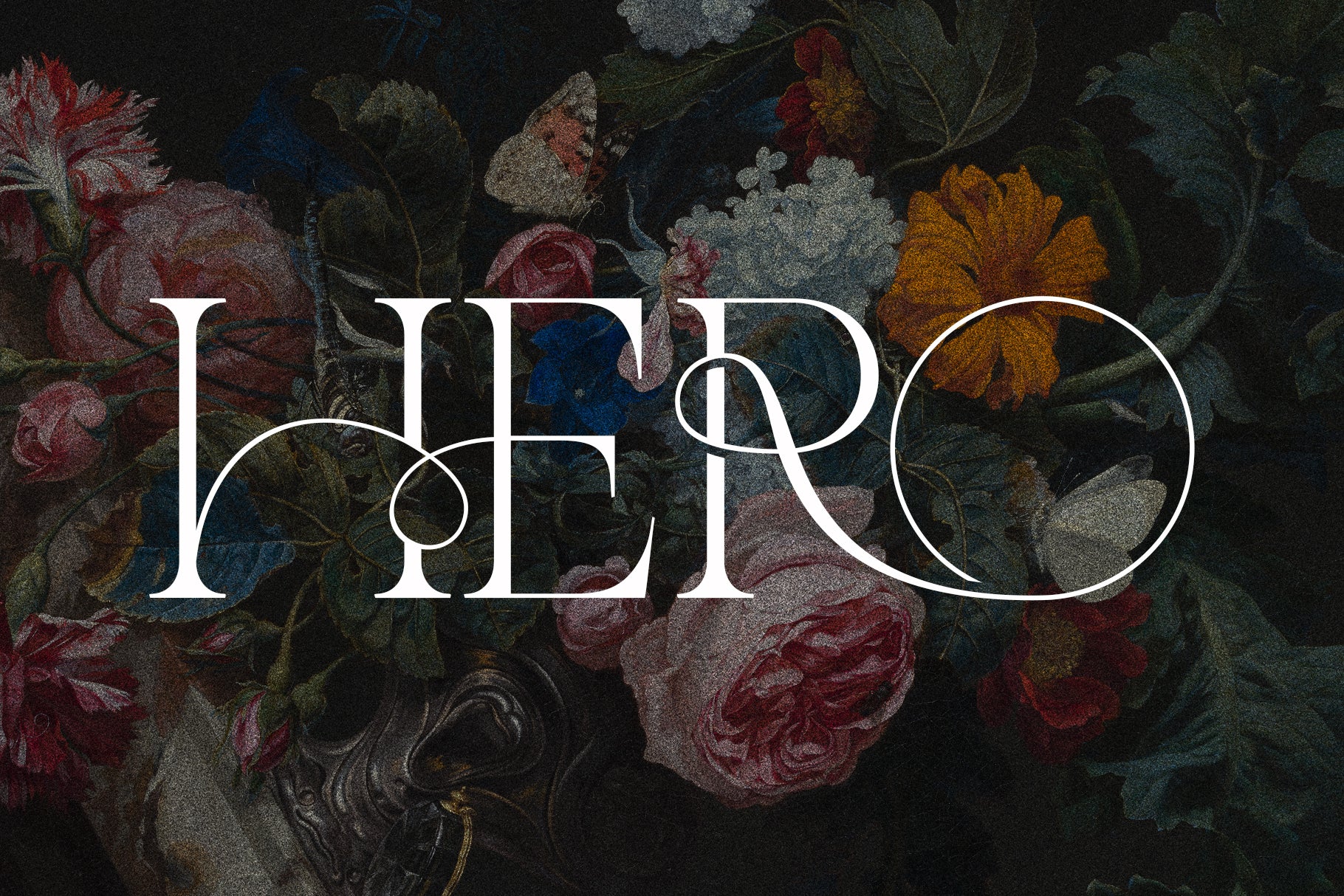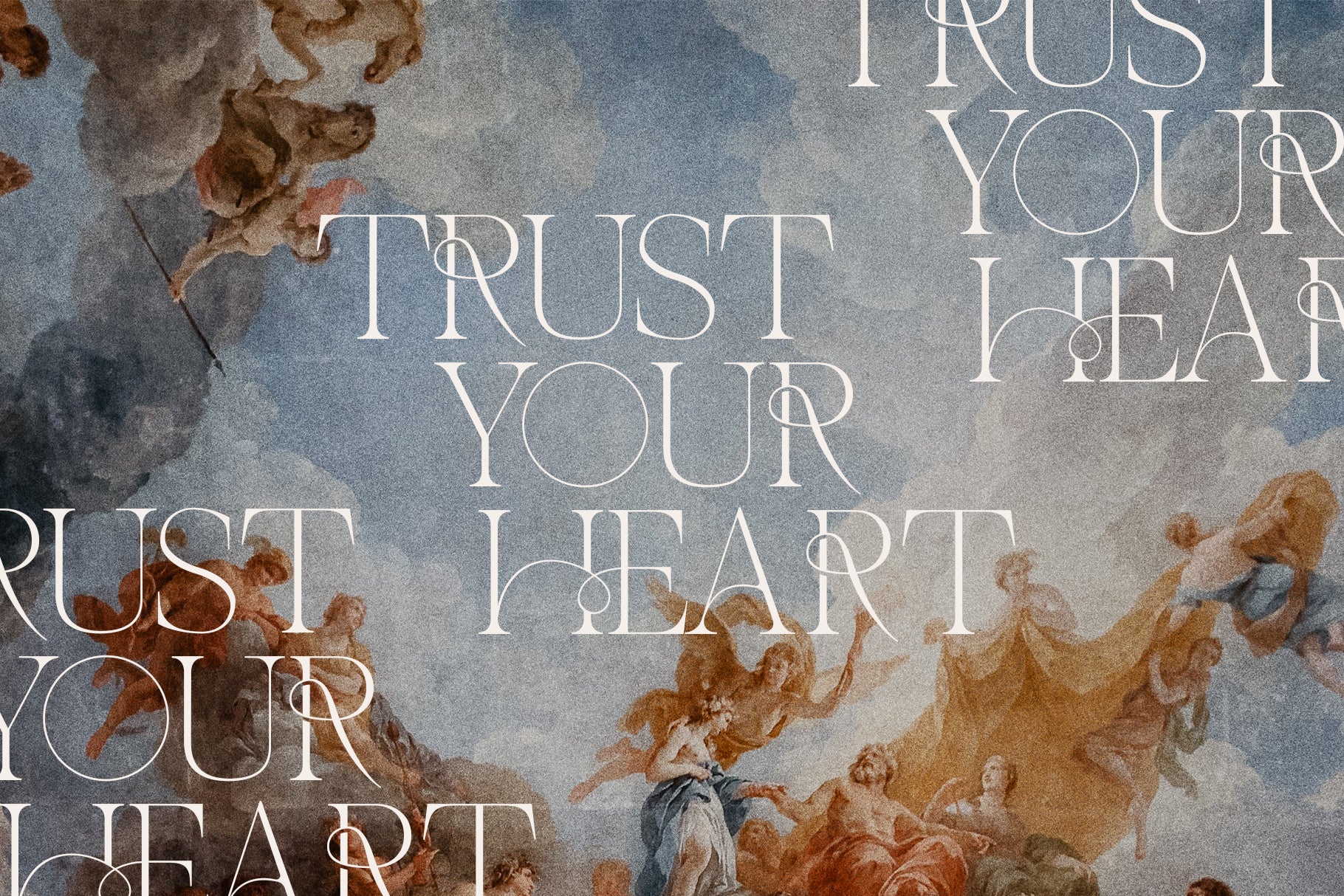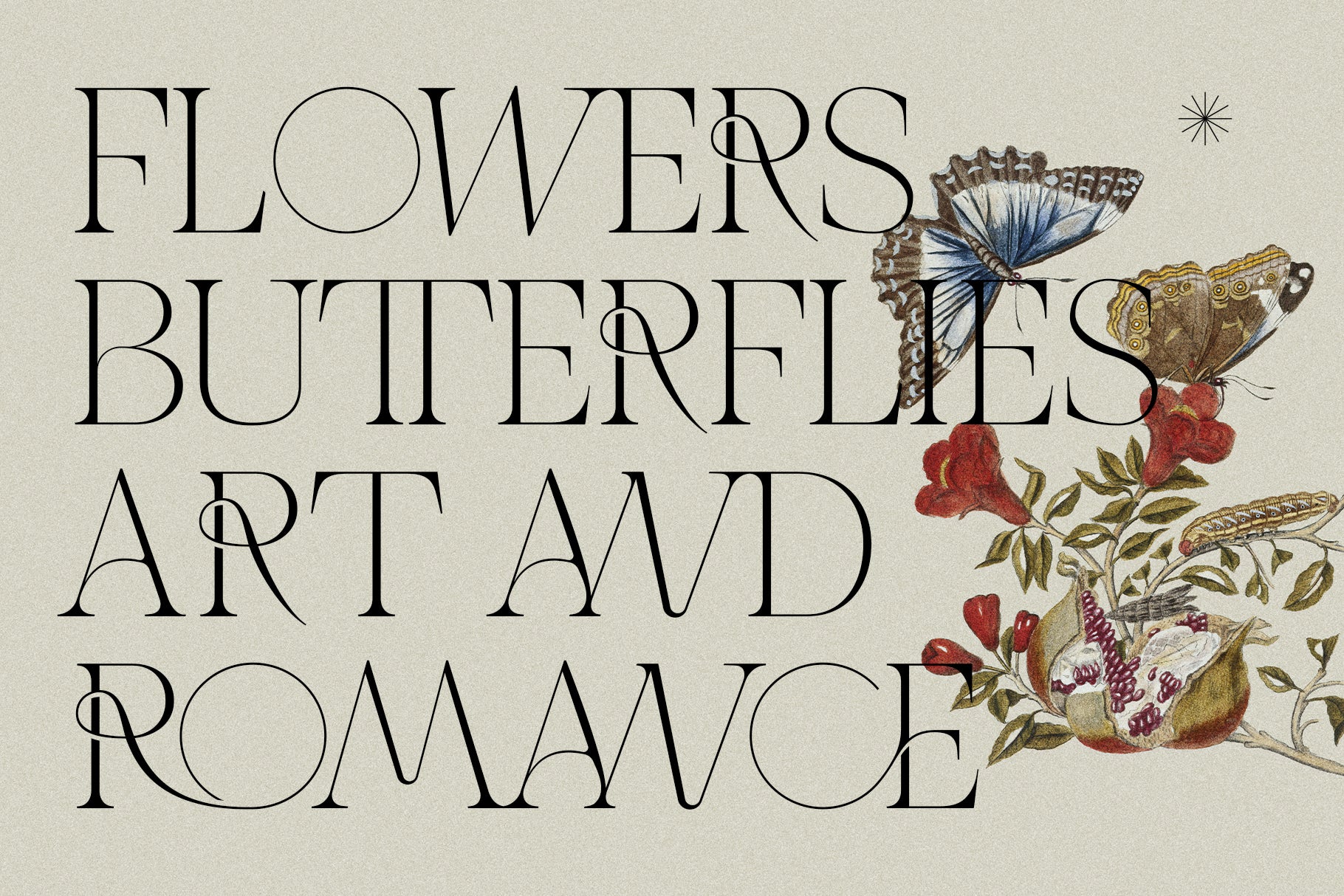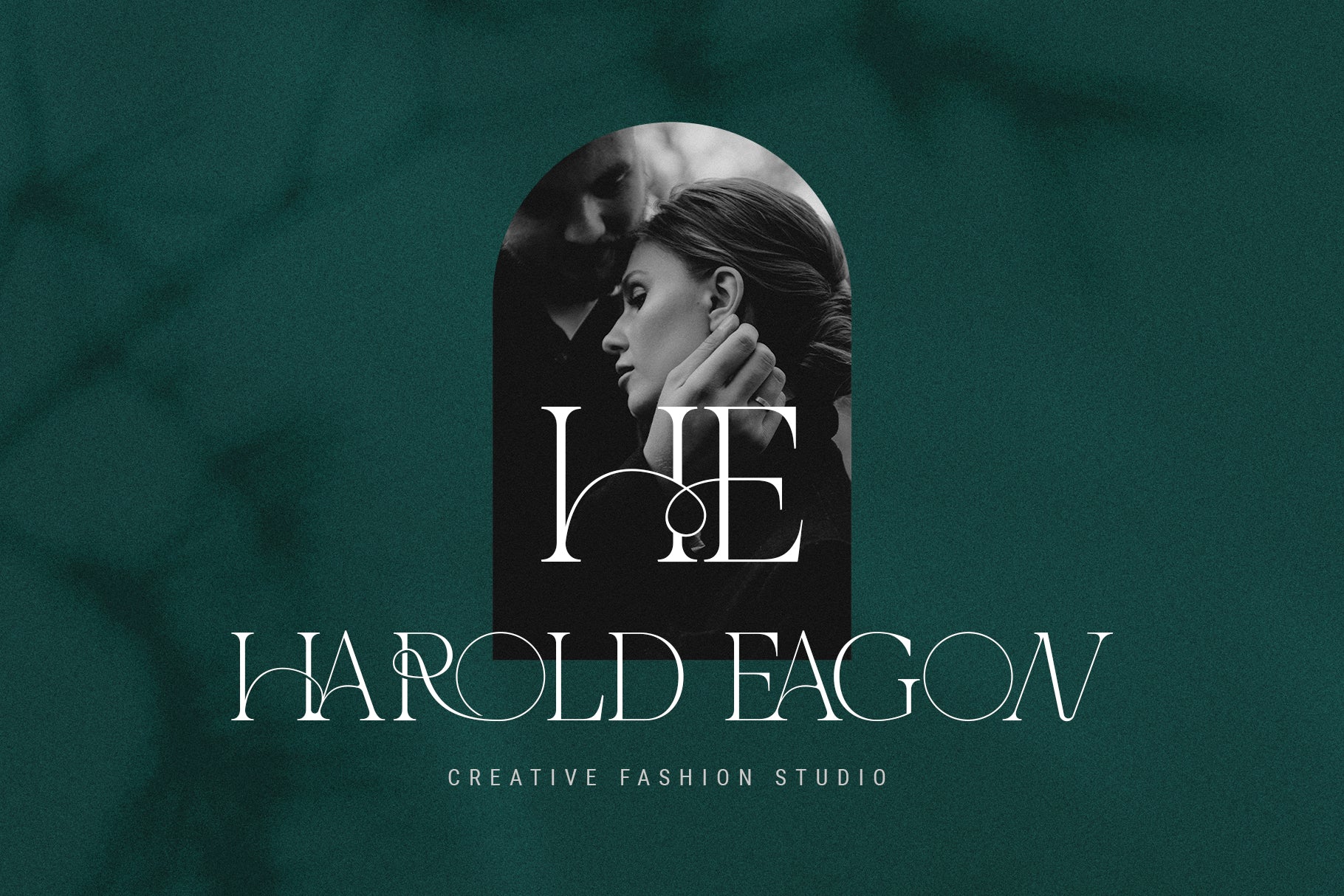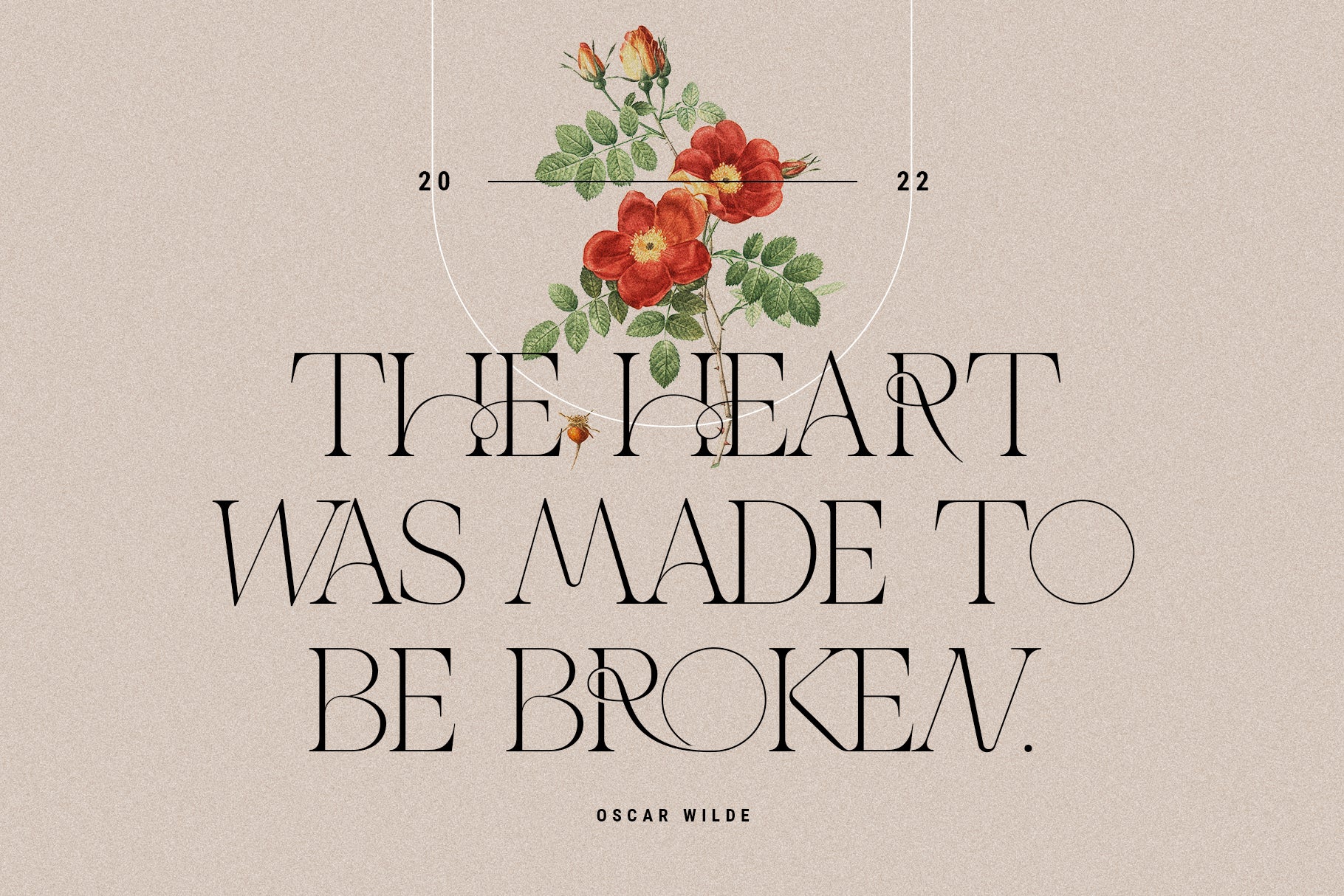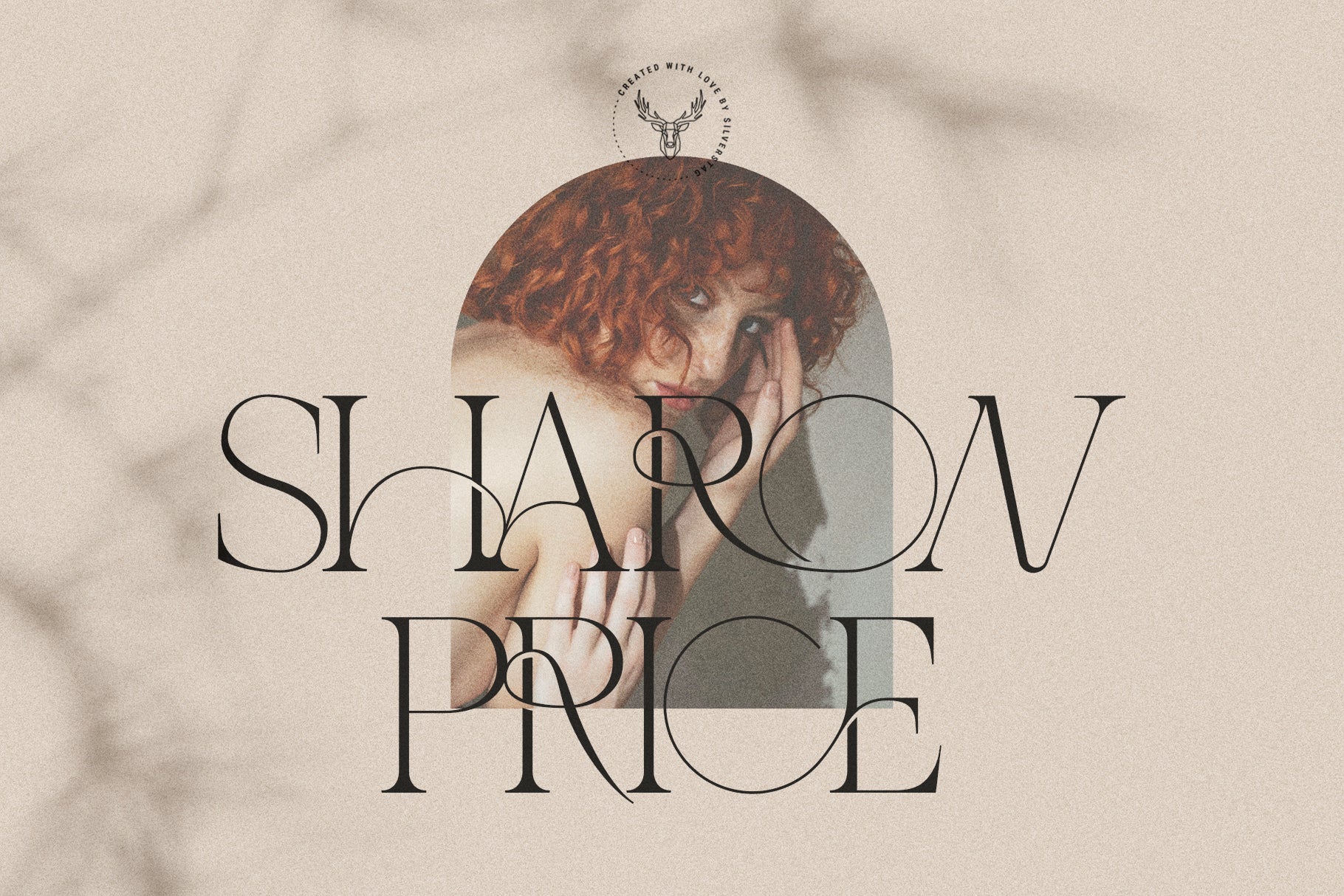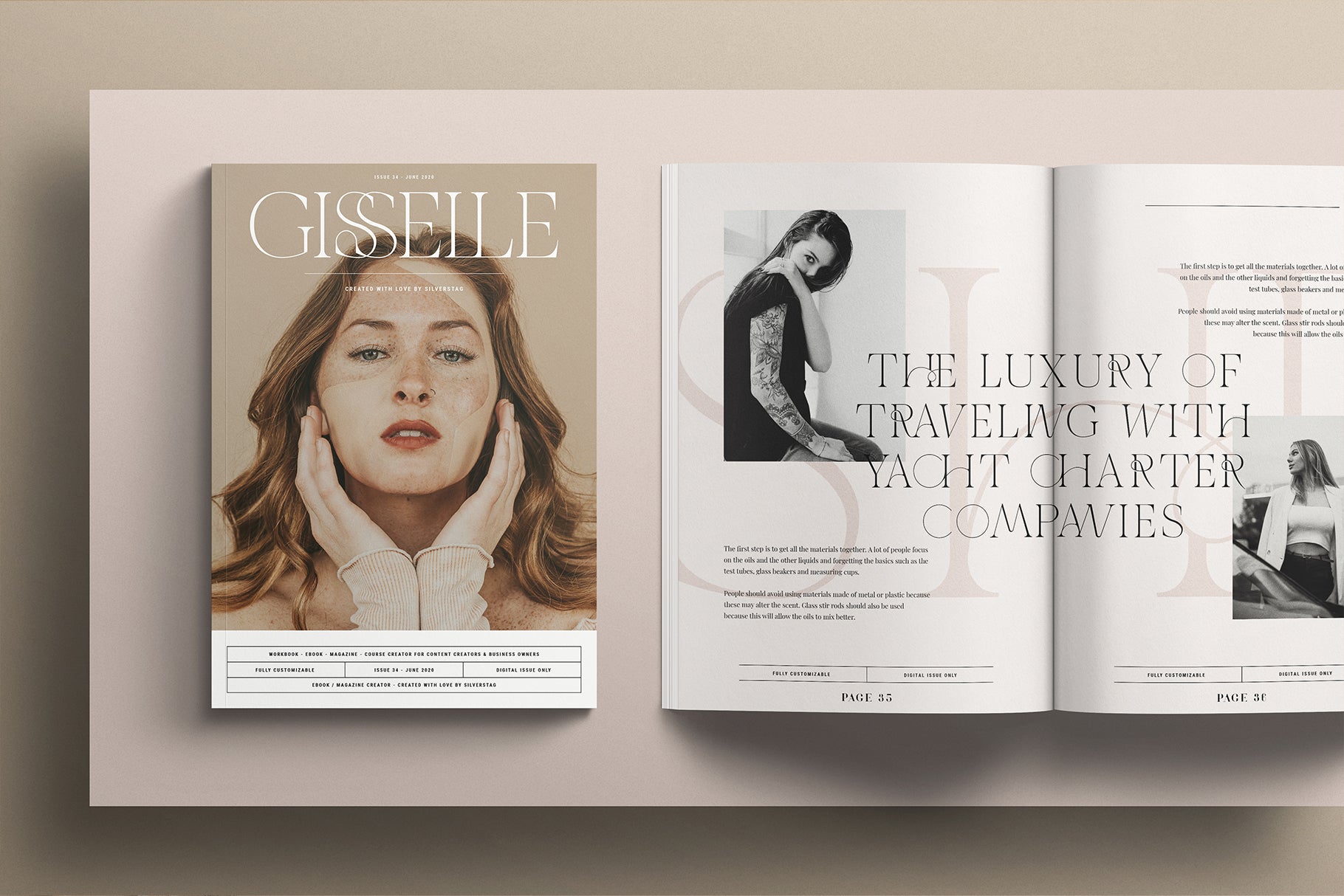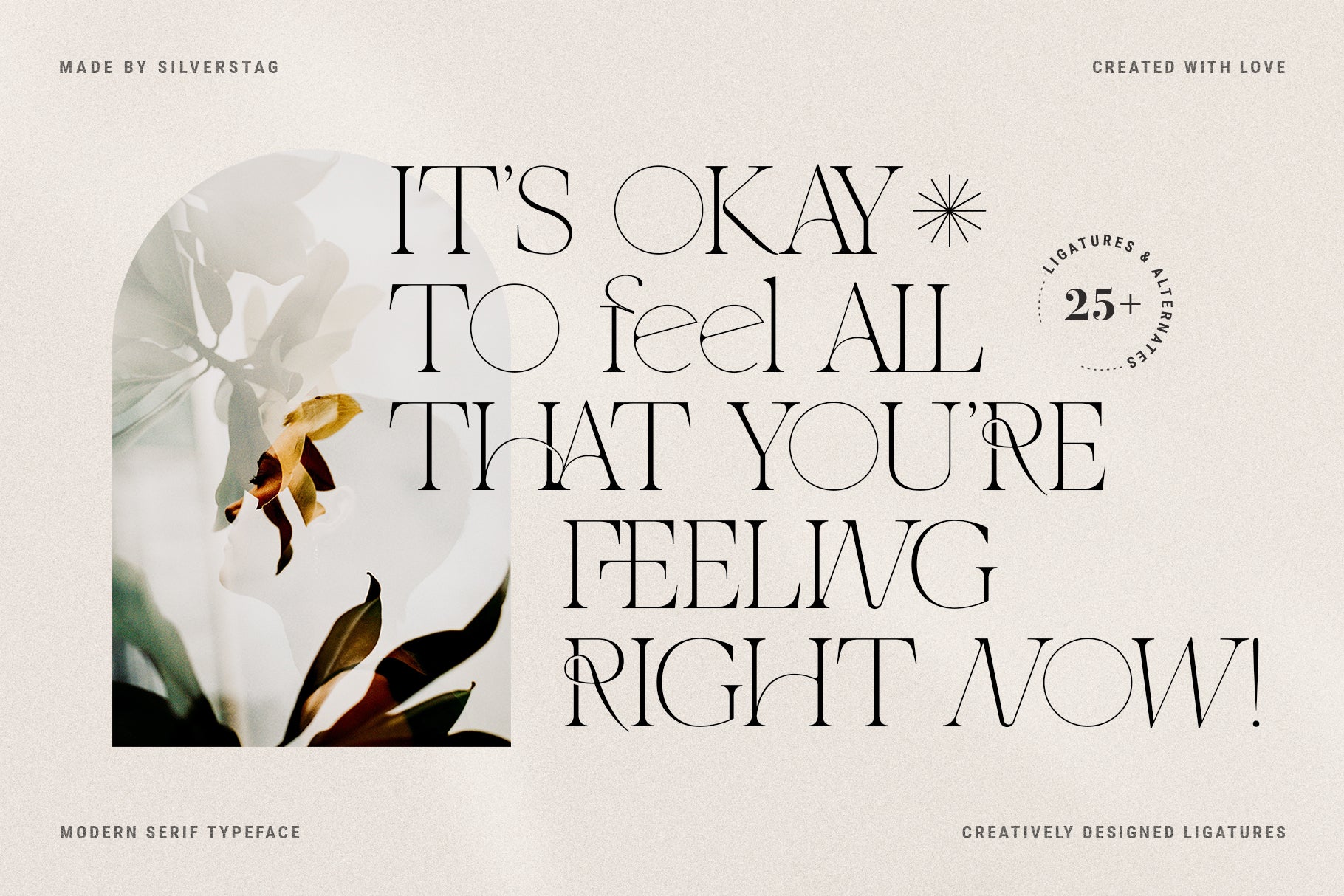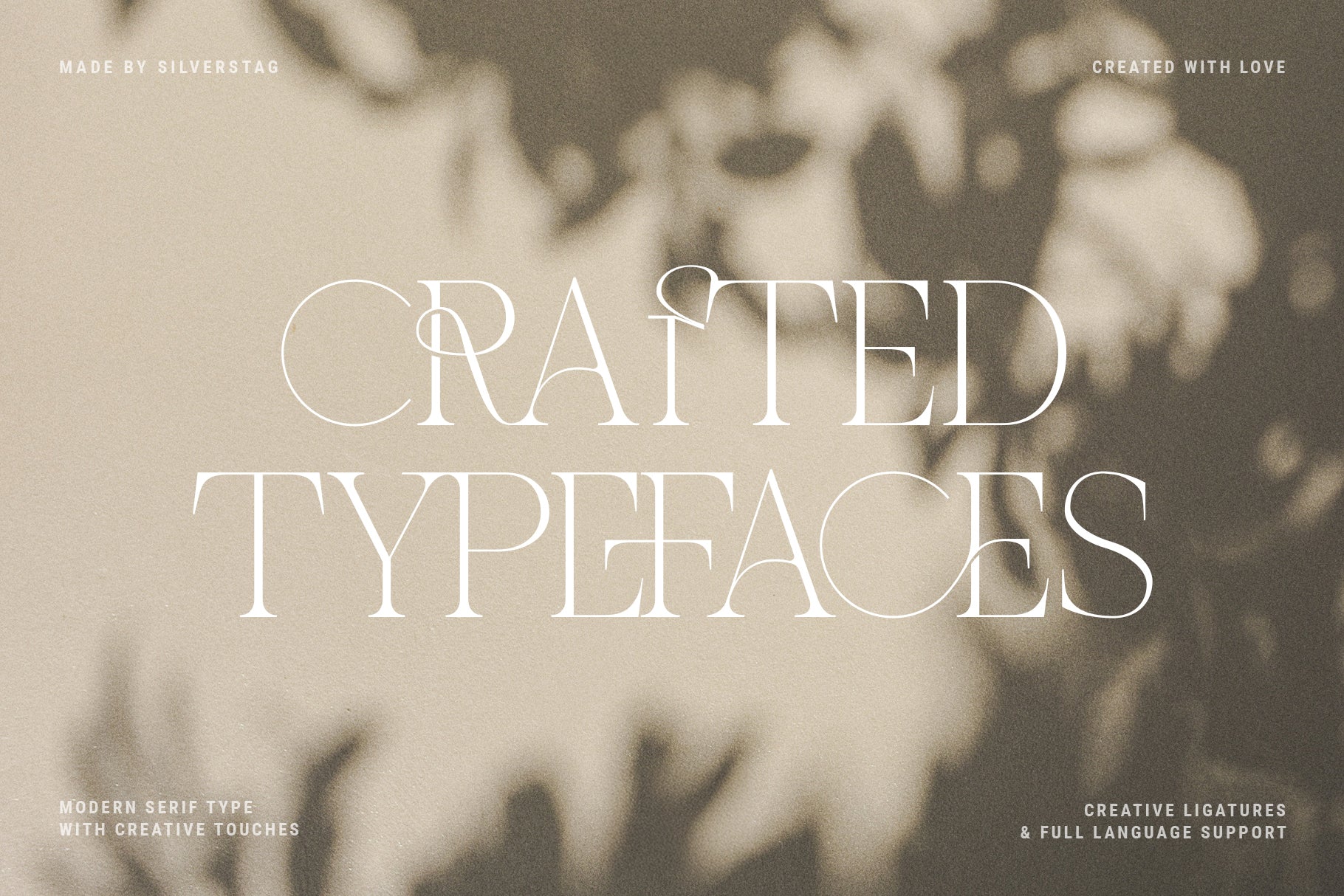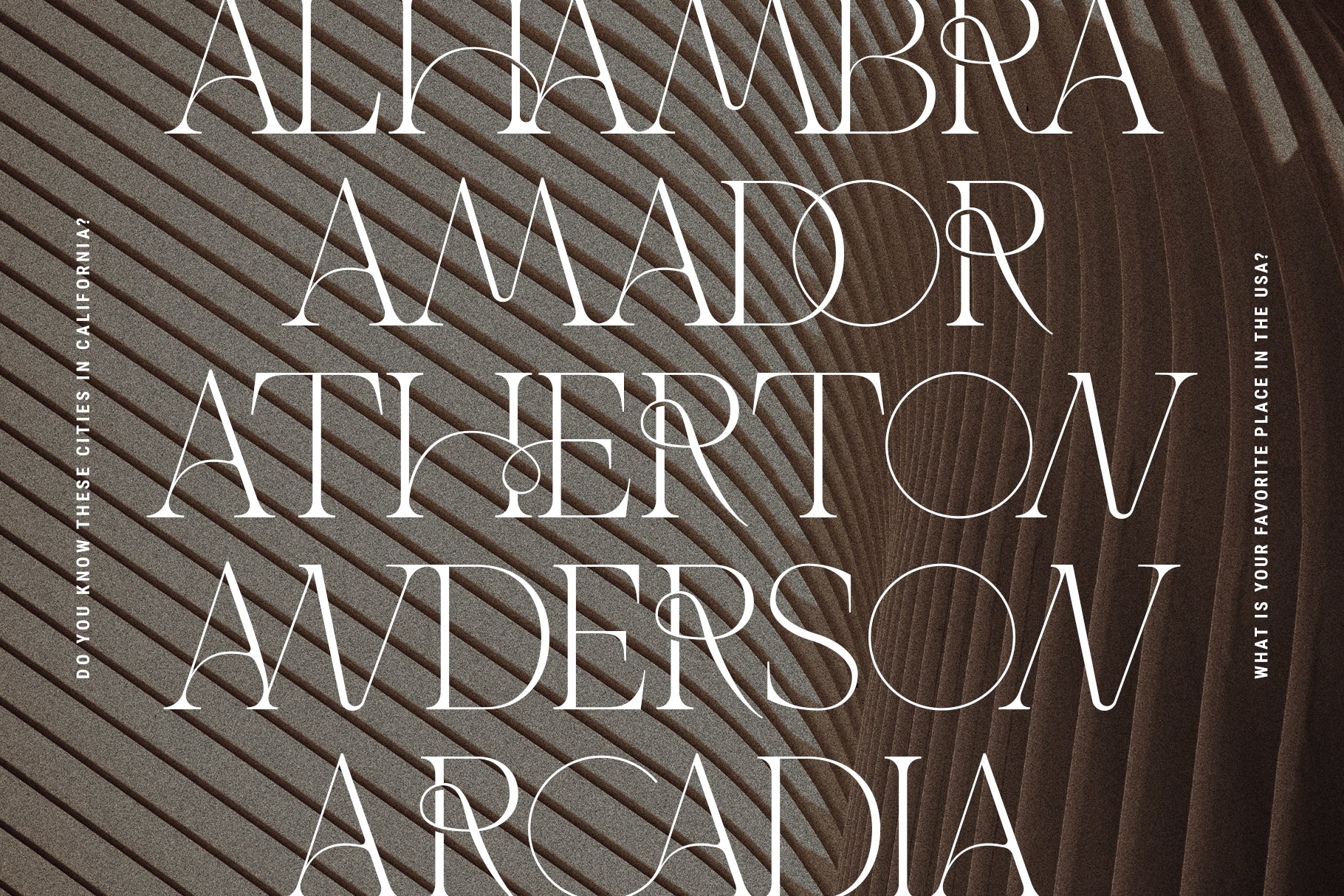
The French Kiss Royal Typeface
Celebrate the spirit of love, art, and timeless French elegance with The French Kiss Royal Typeface. Released just in time for Valentine’s Day, this bold ligature serif font seamlessly blends classical serif traditions with contemporary design solutions. Each letter and ligature has been carefully handcrafted, offering a 100% unique aesthetic with flowing connections and edgy sophistication.
Whether you are creating a Valentine’s Day card, a romantic poster, a luxury branding project, or an elegant website, The French Kiss Royal Typeface will help you make a striking impression. The font includes over 25 stylish ligatures, full language support, numerals, punctuation, and even a Web Font Kit for digital applications.
Designed to be used in bold, expressive ways, this font is perfect for designs that need to stand out with confidence and charm.
Trust your heart specimen in the French Kiss Royal Typeface over a Renaissance fresco
Harold Eagon creative fashion studio specimen in the French Kiss Royal Typeface over an arch
Sharon Price specimen in the French Kiss Royal Typeface over an arched portrait
An its-okay-to-feel specimen in the French Kiss Royal Typeface over an arched floral photo
California city showcase in the French Kiss Royal Typeface naming Alhambra Amador and Atherton
Romane magazine cover mockup in the French Kiss Royal Typeface with a field portrait
Leaf-viewing travel paragraph in the French Kiss Royal Typeface with a central portrait
Virginia Woolf no-need-to-hurry quote in the French Kiss Royal Typeface with photo insets
The Summer Session poster mockup in the French Kiss Royal Typeface with beach art
A courage-quote magazine spread mockup in the French Kiss Royal Typeface with photo insets
Hero specimen in the French Kiss Royal Typeface over a dark floral still-life
Flowers butterflies art and romance specimen in the French Kiss Royal Typeface with botanical art
Oscar Wilde heart-made-to-be-broken quote in the French Kiss Royal Typeface with a flower
Gisselle yacht charter magazine spread mockup in the French Kiss Royal Typeface
Crafted Typefaces specimen in the French Kiss Royal Typeface over taupe with leaf shadows
Love the process specimen in the French Kiss Royal Typeface with a dried flower stem
Name comparison showcase in the French Kiss Royal Typeface naming Alessia Romeo Chiara and Rossa
Denisse Wallace Roselyn magazine spread mockup in the French Kiss Royal Typeface
Chose the life of your dreams specimen in the French Kiss Royal Typeface over a record store
Bohemian Crown specimen in the French Kiss Royal Typeface over a woman with flowers in her hair
Thank you specimen in the French Kiss Royal Typeface with rose illustrations